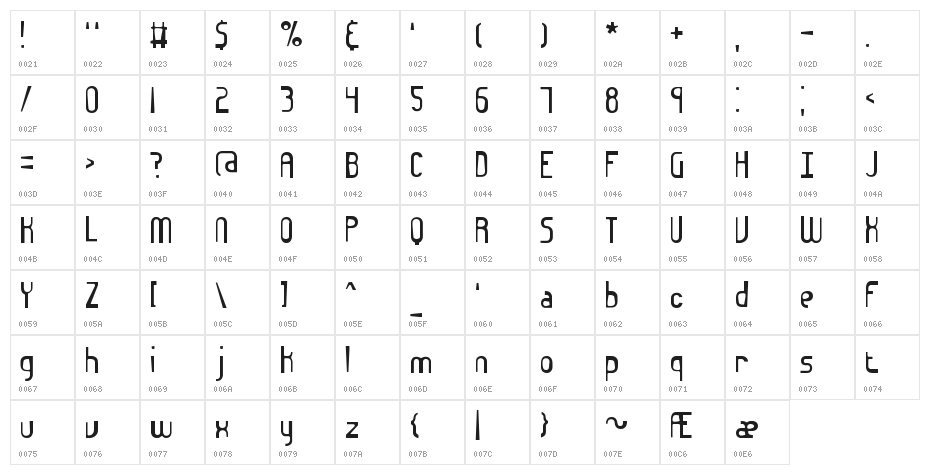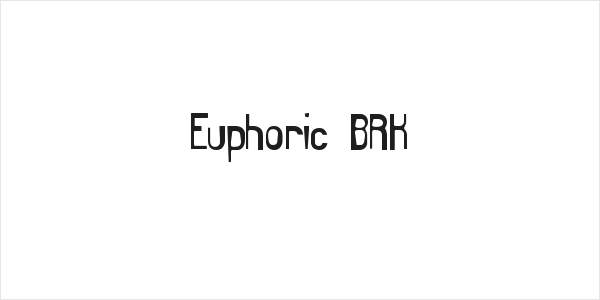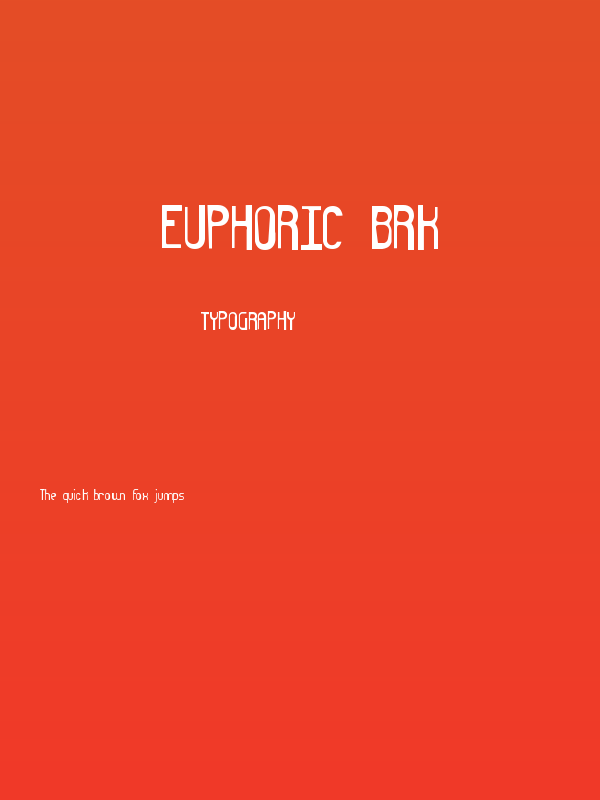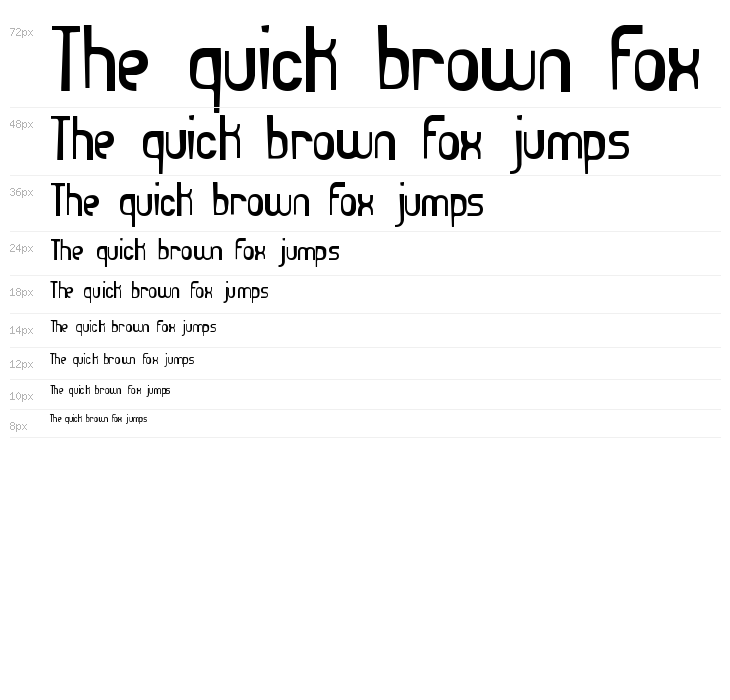
Euphoric BRK Font
Euphoric BRK Description
This font features a unique and modern design with a geometric and slightly condensed structure. The uppercase letters are bold and striking, with a mix of straight lines and subtle curves that give it a distinctive look. The lowercase letters maintain a consistent style, offering a harmonious blend of rounded and angular elements. The numerals are clear and easily readable, matching the overall aesthetic of the alphabet. Special characters are creatively designed, adding to the font's versatility. This font's style is both contemporary and playful, making it suitable for a variety of creative projects.
| Proposed Projects | Ideal for branding, posters, headlines, and creative design projects. |